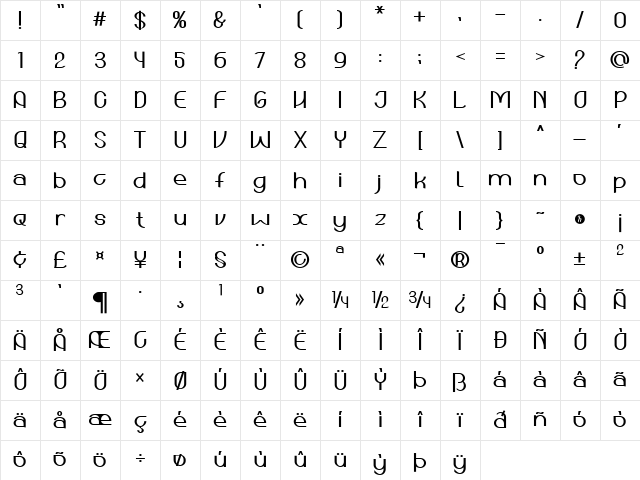
ASOKA Regular Free Font
ASOKA Regular
Designer: RAHMATILLAH
Design Context for ASOKA
ASOKA is a composed and adaptable typeface that performs quietly and consistently across a wide range of design contexts.